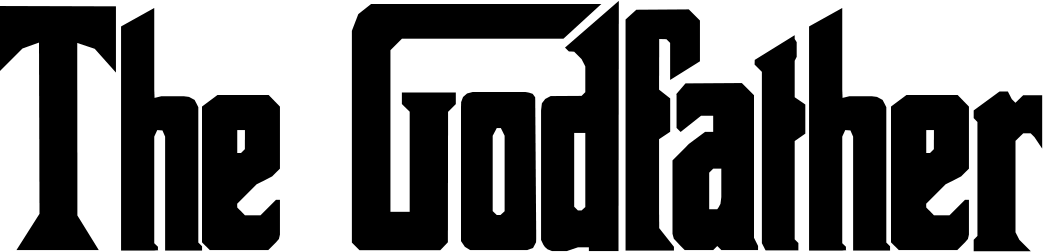
The Godfather Font
Designed byRandombell
If you are looking for a special font to arouse your audience’s feelings, you have come to the right place. Here is The Godfather font that can add beauty to your text. This gangster font inspired by mafia movies comes with a narrow style. You can use it in special posters, movie titles, T-shirts, logotypes, and more to create an exciting feeling for audiences.